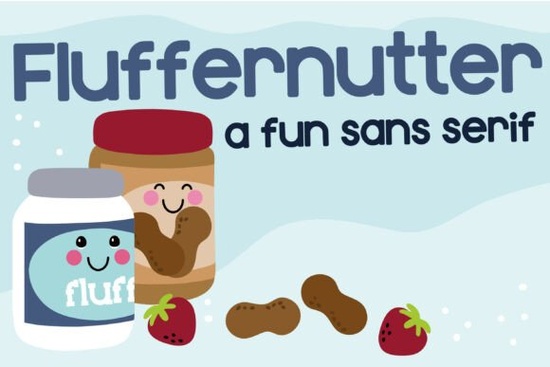
Fluffernutter Font
If you're looking for a typeface that feels like a warm hug on a cereal box, the Fluffernutter Font is exactly that. It's a heavy, rounded sans-serif with pillowed edges and a playful rhythm that works beautifully for children's products, bakery branding, and sweet-treat packaging. Think of it as the typographic equivalent of a marshmallow soft, friendly, and impossible to ignore.
Designed with uniform stroke weights and soft, inflated terminals, Fluffernutter bridges the gap between retro snack packaging and modern indie children's lifestyle branding. Whether you're a print-on-demand seller, a small bakery owner, or a crafter working on birthday party decorations, this typeface brings a sense of warmth and approachability that few fonts can match.
What Does the Fluffernutter Font Actually Look Like?
Fluffernutter is a rounded sans-serif typeface with noticeably heavy letterforms. Every character shares the same stroke thickness, which gives it a consistent, balanced look across headlines and body text alike. The terminals those ends of each letter stroke are pillowed rather than pointed, creating a soft, cushioned appearance.
The baseline has a subtle organic rhythm, meaning the letters don't sit in a rigid, mechanical line. Instead, there's a gentle flow that keeps text from looking sterile. This quality alone makes it feel more handmade and personal, even though it's a cleanly designed digital font.
Here's a quick breakdown of its visual traits:
• Stroke weight: Heavy and uniform across all characters
• Terminals: Rounded, pillowed edges with no sharp points
• Baseline: Slightly organic rhythm for a natural feel
• Overall mood: Friendly, chunky, approachable, and playful
Where Does This Font Work Best?
Fluffernutter was built with very specific use cases in mind, and it shines brightest in projects where warmth and friendliness matter most. Here are the top scenarios where designers and small business owners tend to reach for it:
1. Independent sweet-treat packaging Think artisan candy wrappers, gourmet marshmallow bags, and small-batch chocolate labels. The rounded weight of this font signals indulgence without feeling cheap.
2. Artisan bakery branding Logos, menu headers, loyalty cards, and storefront signage for bakeries and cafés that want a cozy, inviting look.
3. Children's birthday decorations Invitations, banners, cupcake toppers, and party favor labels. The soft letterforms feel safe and fun, which parents and kids both respond to.
4. Preschool and educational headers Worksheets, classroom posters, and learning materials where readability and a cheerful tone are essential.
5. Social media graphics Instagram stories, Facebook ads, Pinterest pins, and TikTok overlays. The bold weight holds up well at small sizes and grabs attention quickly in a crowded feed.
How Does Fluffernutter Compare to Other Rounded Fonts?
There are plenty of rounded sans-serif fonts out there, but not all of them hit the same sweet spot between chunky and legible. If you're exploring options in this style, here's how Fluffernutter sits alongside some similar typefaces worth considering:
If you prefer something with a slightly more geometric structure, a clean geometric sans-serif like Onelia offers a more refined take on rounded lettering. It works well for brands that want softness without the heavy, inflated look.
For projects that lean into the craft and rhinestone template space, the RS04 Modern DIY Rhinestone font gives you a sans-serif foundation designed specifically with DIY crafters in mind.
Looking for something with a coffee-shop warmth? The Mochacino typeface brings a cozy, café-inspired personality that pairs nicely with bakery and beverage branding, though it leans more toward a hand-lettered style than Fluffernutter's structured roundness.
And if you need an entire family of weights and styles for a larger branding project, the Maple Doughnuts font family gives you multiple variations to work with while keeping that same doughy, friendly character across every version.
Is Fluffernutter a Good Fit for Print-on-Demand?
Absolutely. One of the biggest challenges for print-on-demand sellers is finding fonts that reproduce well across different products mugs, t-shirts, tote bags, stickers, and posters all handle type differently. Fluffernutter's heavy weight and uniform strokes mean it holds up reliably in both large and small formats.
Bold, rounded fonts also tend to sell well in the POD space because they appeal to broad audiences. Parents buying kids' merch, foodies shopping for kitchen décor, and anyone drawn to cheerful, approachable design all respond to this style. If you're building a product line around food themes, childhood nostalgia, or indie lifestyle branding, Fluffernutter fits naturally into your toolkit.
Tips for Pairing Fluffernutter With Other Fonts
A chunky display font like Fluffernutter works best when paired with something lighter for body text. Here are a few pairing ideas:
• ✅ Do you need a font that reproduces well on physical products? Uniform strokes and bold weight make it print-friendly.
• ✅ Are you working on children's, food, or lifestyle branding? This is where Fluffernutter's personality truly belongs.